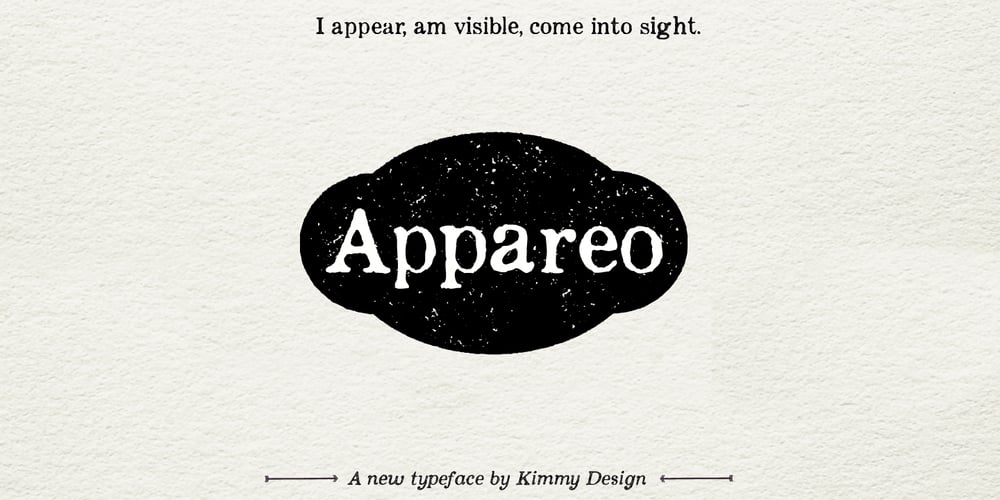
Appareo Font Family was designed by Kimmy Kirkwood and published by Kimmy Design. Appareo contains 9 styles and family package options. Inspired by vintage books and the pages within, Appareo is an imperfect, worn serif font that comes in three weights. Each weight has a varying degree of distress, from Black, in which the press and ink fully set into the page, to Medium, Light and Extralight, where the texture is heaviest. Each weight also has a custom italics version of each character. To fully give the authentic feel of worn pages of dusty books, Appareo has 5 character variations. Appareo also has a set of graphic elements, including frame, banners, borders, arrows, etc in the same style and texture.